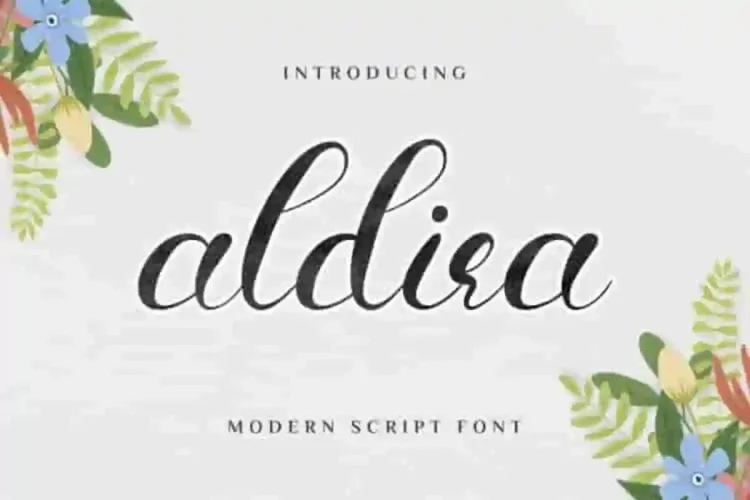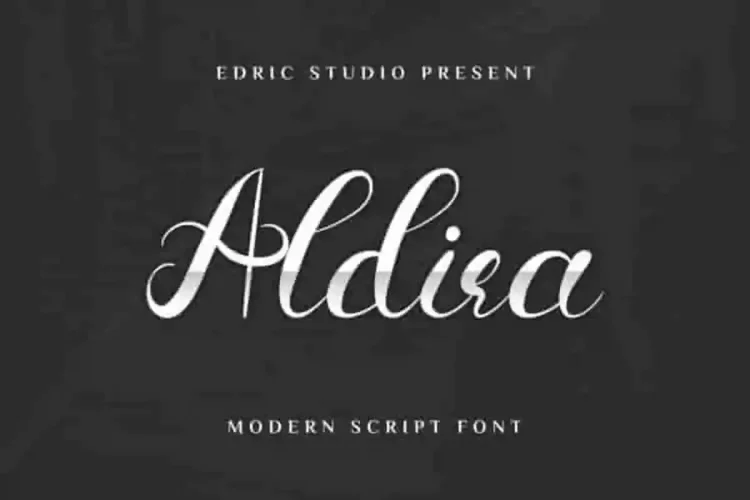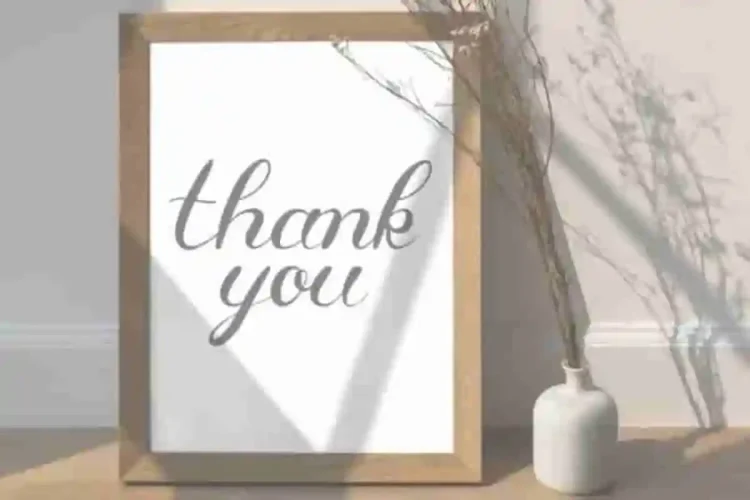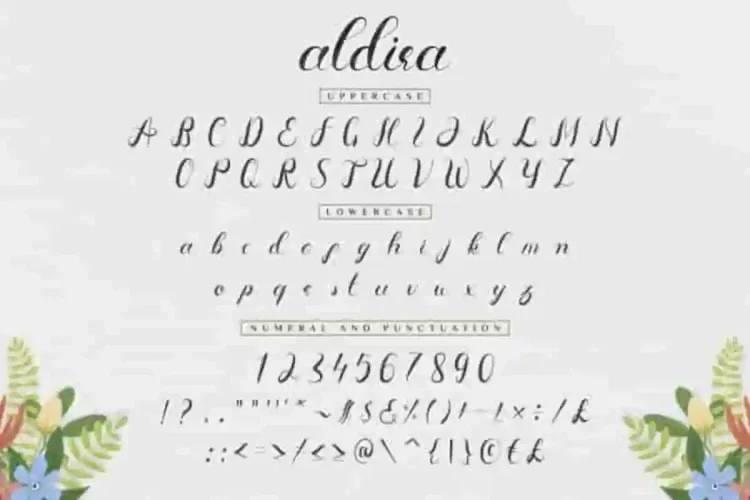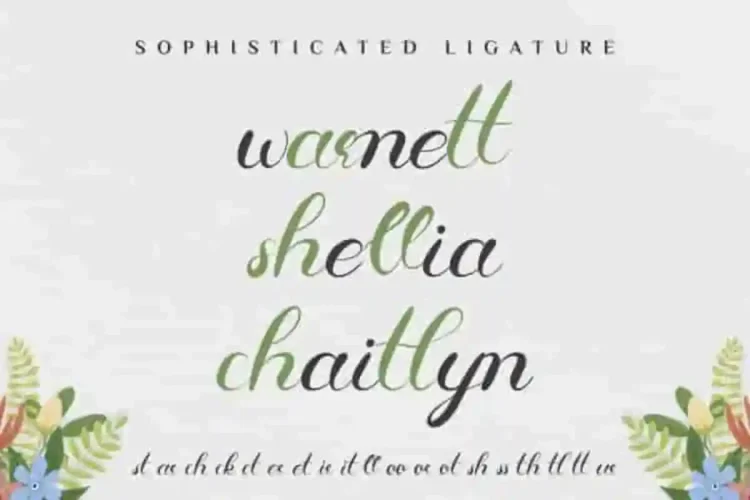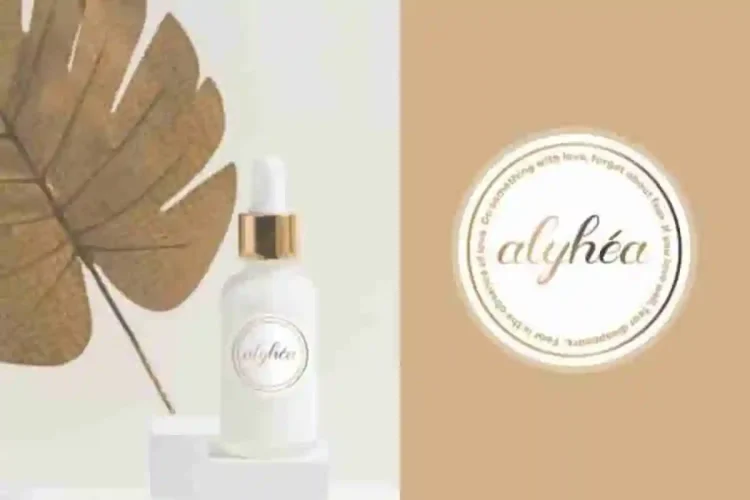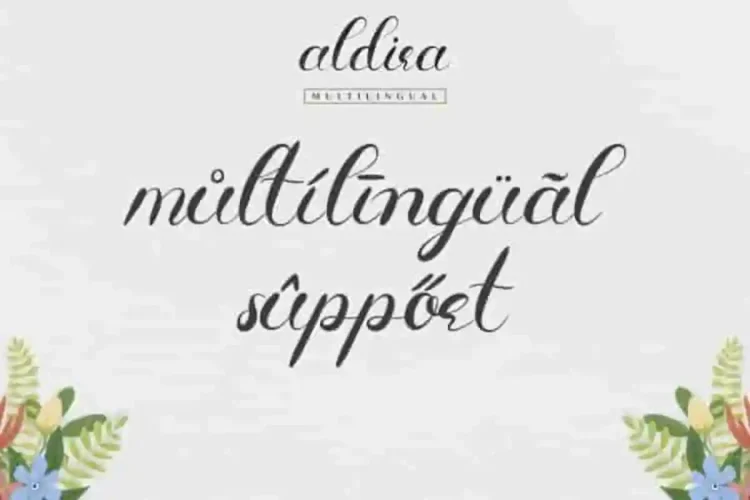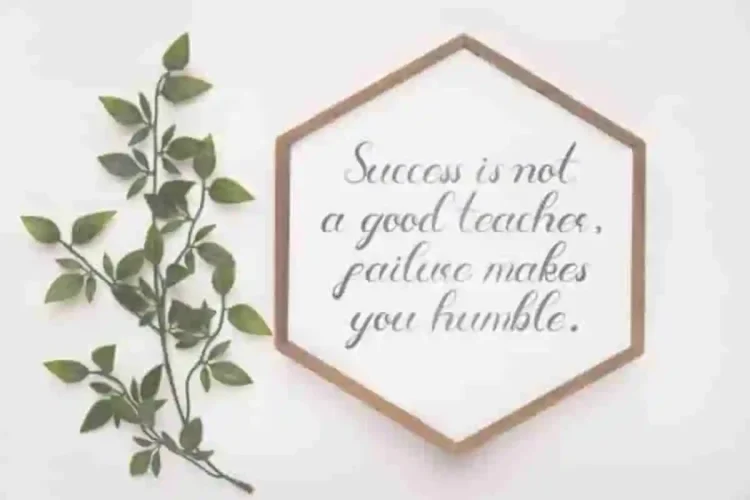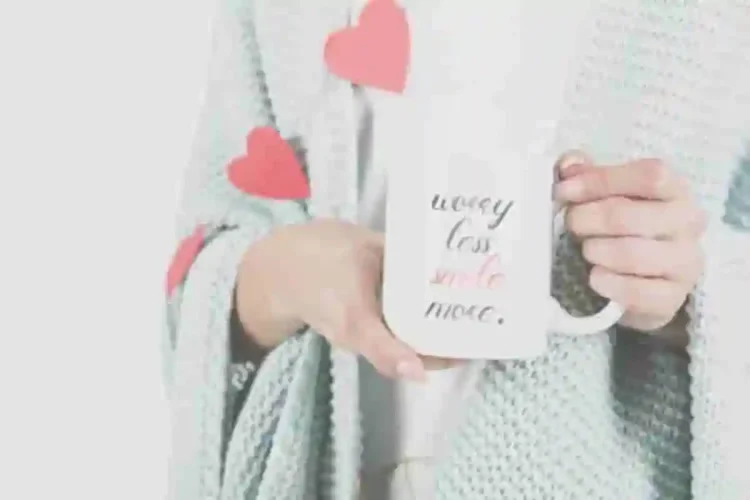
Aldira Calligraphy Script Font
Introducing our latest font creation :  Aldira Calligraphy Script Font.
This is a Calligraphy font, handcrafted from our Studio here in, Indonesia. The artists/designers of this beautiful tyeface is Widiyanti and Sarah Suci.
Aldira Calligraphy Script Font is an exclusive calligraphy script typeface with brush style. This font has a stunning characters set, perfectly managed with well spaced and kerning.
Aldira Calligraphy Script Font will be great for any projects including : branding, logo, stationery, business card, signage, flyer, brochure etc. Almost all industries will be match for this typeface: wedding, events, real estate, architect, law firm, florist, gardening, makeup artist, travel, hotel, musician etc.